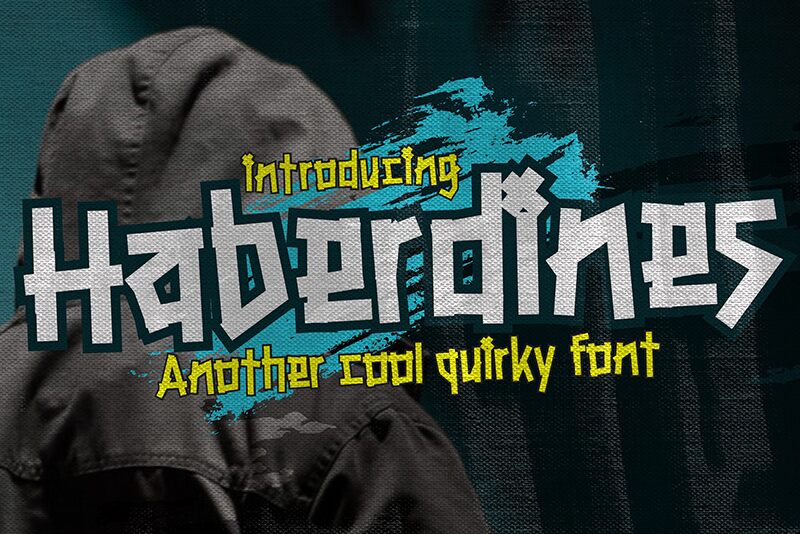
Haberdines is a display font designed by Gassstype, perfect for projects that require a cool and quirky touch. Its playful cartoon style is suitable for various design projects, from book covers and logos to posters and packaging. The semi-bold font provides enough weight to make your text stand out, while the width adds an extra touch of character. Haberdines font will make your content both visually appealing and easy to read. If you want to add some fun to your designs, Haberdines is the perfect choice.